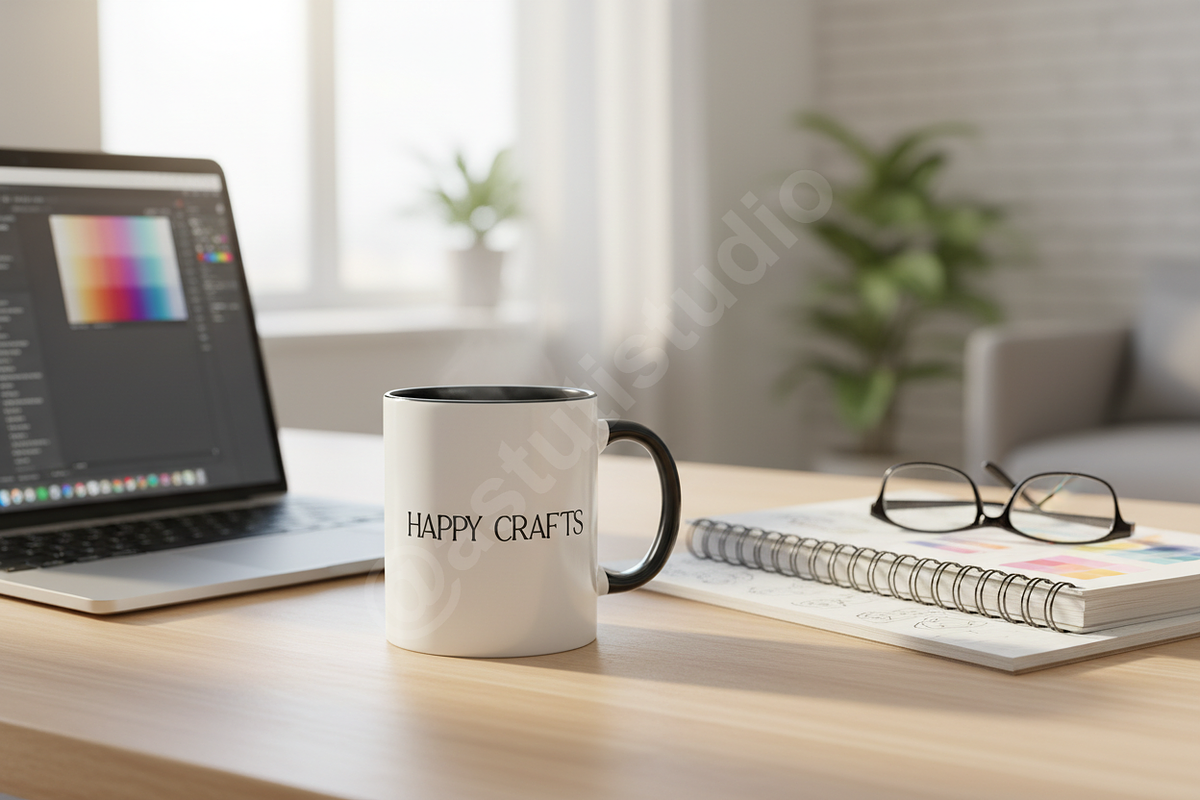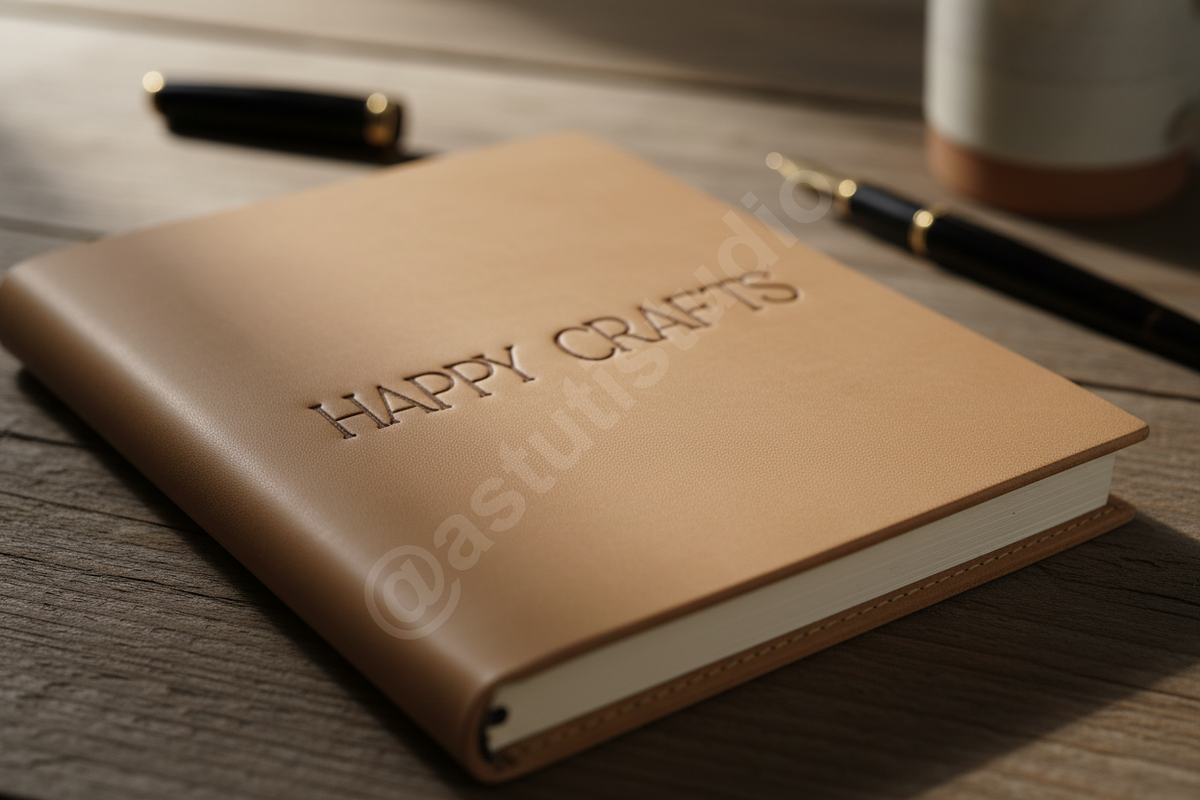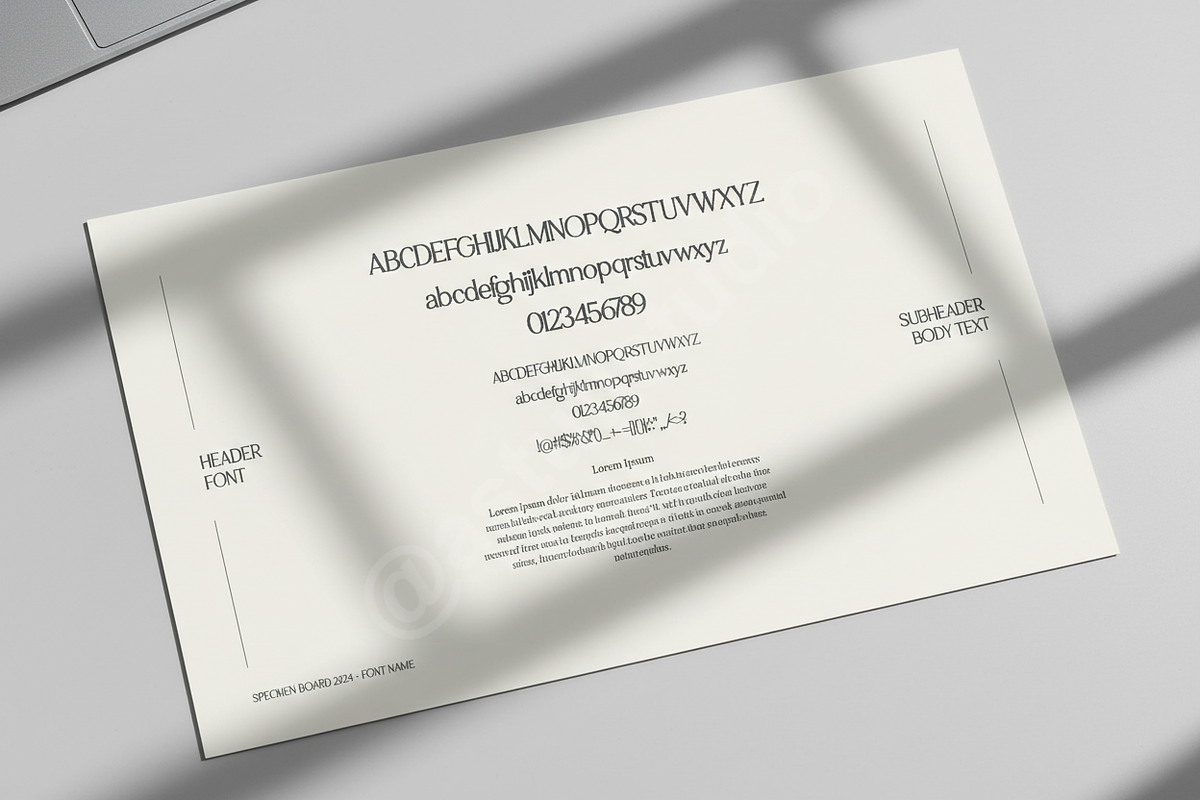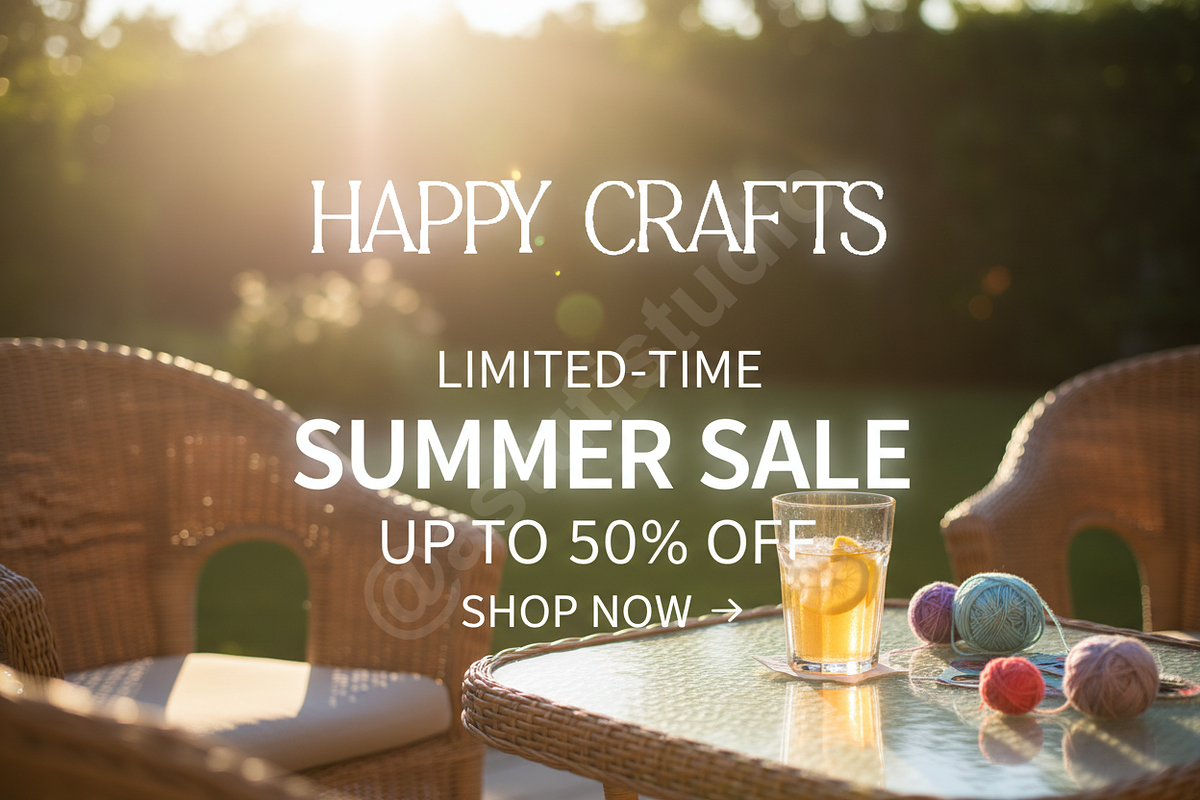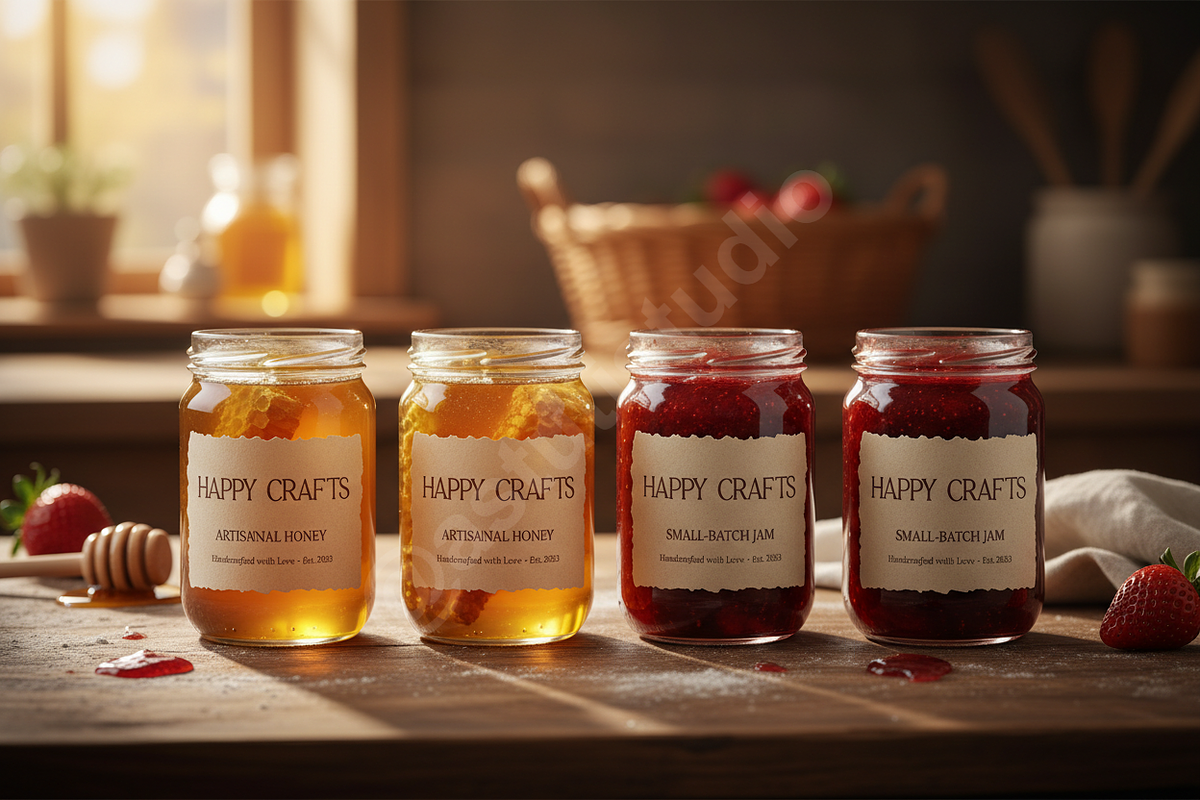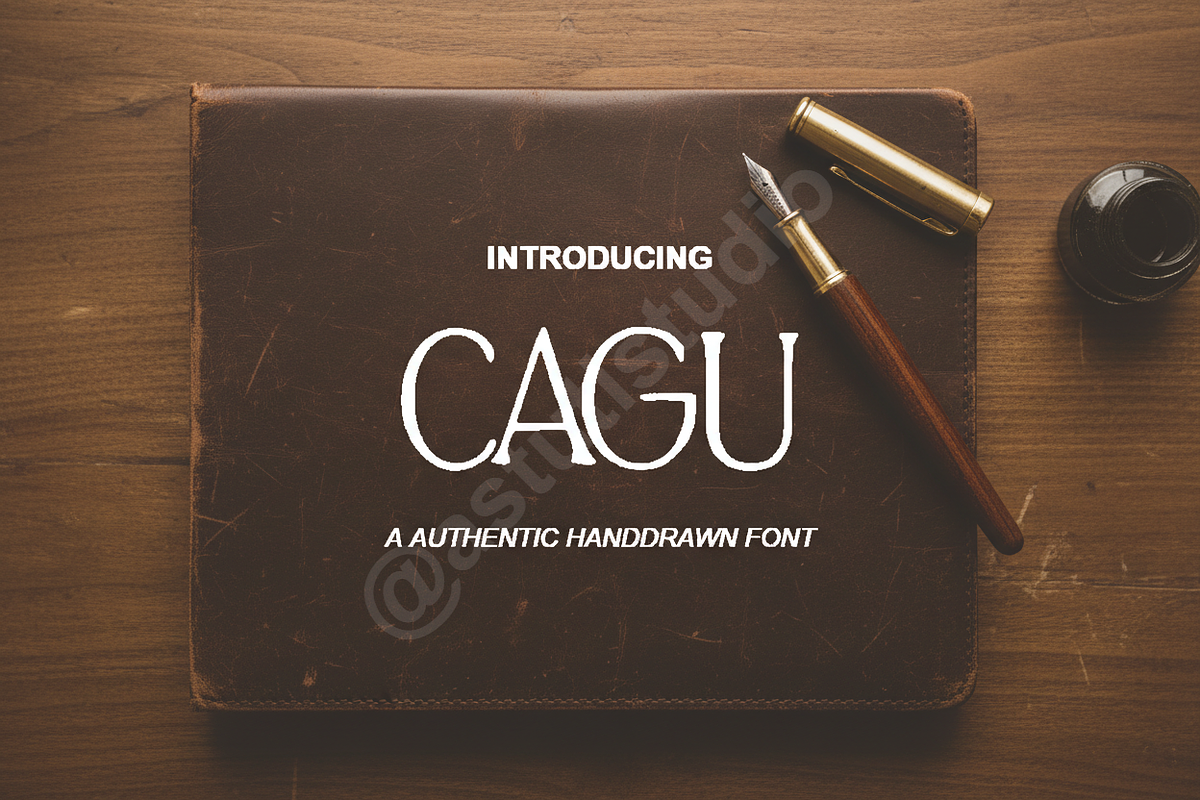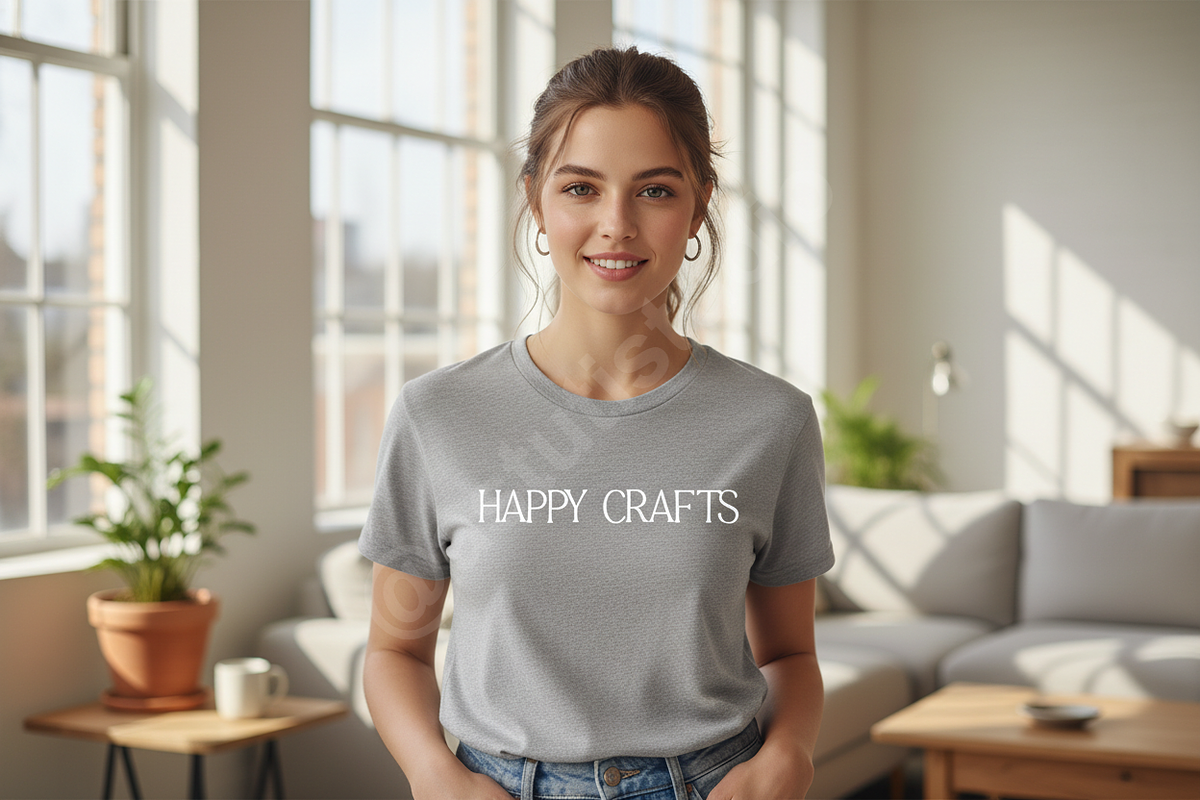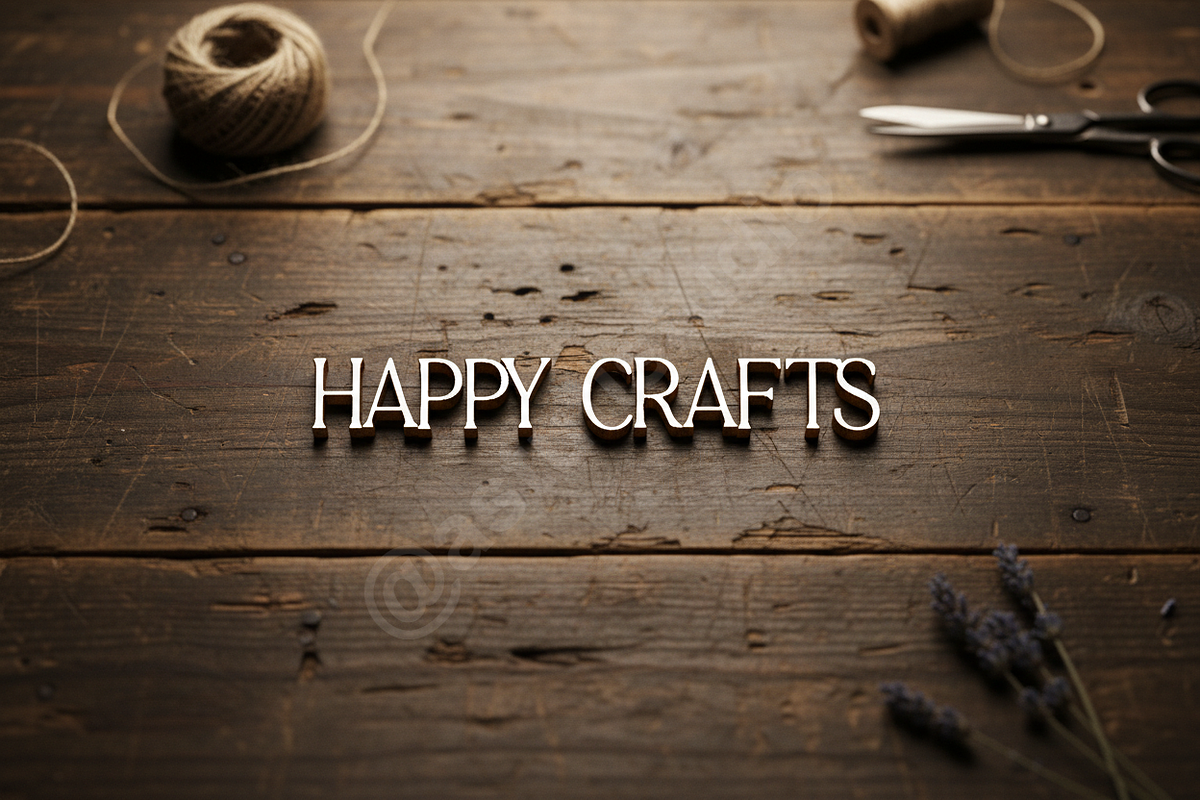
Cagu - Elegant High-Contrast Serif T
Introducing Cagu, a meticulously crafted high-contrast serif typeface designed for the discerning creative professional. Cagu embodies sophisticated elegance and modern luxury, making it the perfect typographical cornerstone for projects that demand attention and refinement. Its sharp terminals and sweeping curves provide a unique visual rhythm, ensuring your brand identity resonates with premium quality.
KEY FEATURES & VERSATILITY
Cagu is built for maximum impact across various media:
LUXURY BRANDING & IDENTITY Elevate logos, packaging, and high-end collateral with Cagu's distinct character. Ideal for fashion houses, jewelry brands, and fine dining establishments.
EDITORIAL DESIGN Perfectly suited for magazine layouts, impactful headline treatments, and pull quotes where readability meets undeniable style.
DIGITAL & SOCIAL MEDIA Maintain premium consistency online. Optimized for clear display on Instagram stories, website headers, and digital campaigns.
OPENTYPE FEATURES A robust set of OpenType features including standard ligatures, stylistic alternates, and contextual alternates for truly bespoke typography.
- Full set of uppercase and lowercase letters
- Punctuation, numerals, and extensive multilingual support (A-Z, À-Ö, 0-9)